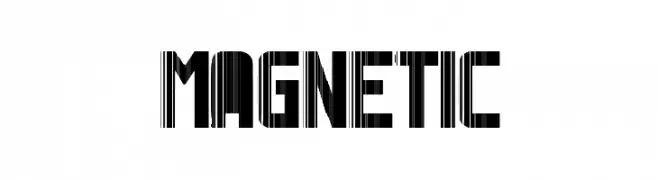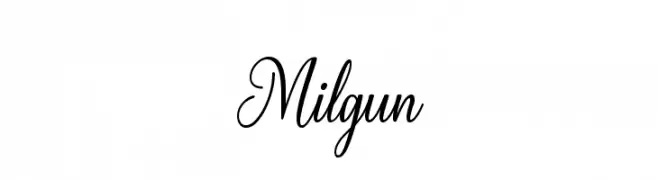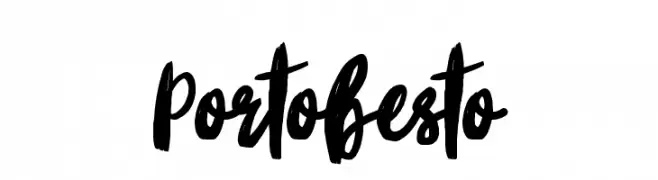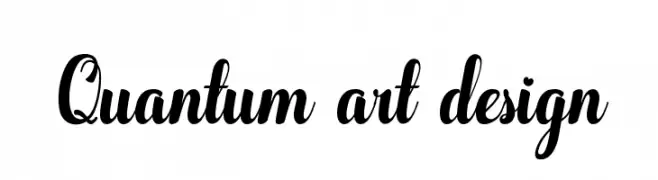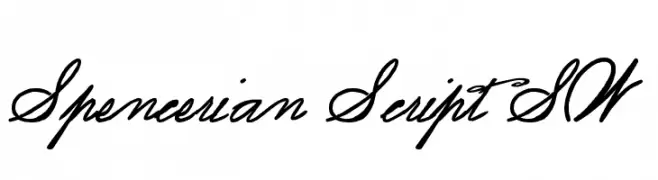
An elegant script font with flowing, interconnected letters and dynamic stroke contrast.
A bold, modern font with dynamic vertical lines creating a futuristic look.
A bold, expressive handwritten font with fluid, connected strokes.
A bold, playful script font with a hand-drawn, whimsical style.
A graceful, flowing script font with elegant, connected strokes and an italic style.
A bold, playful script font with rounded edges and smooth flow.
A playful and elegant script font with smooth, flowing characters.
An elegant, flowing script font with a sophisticated, handwritten style.